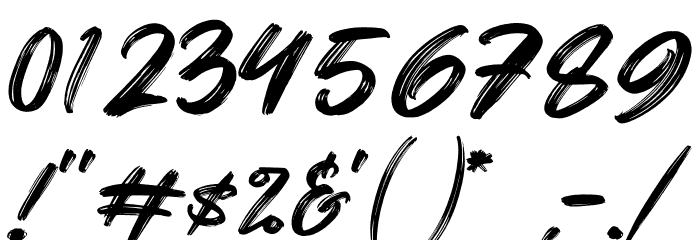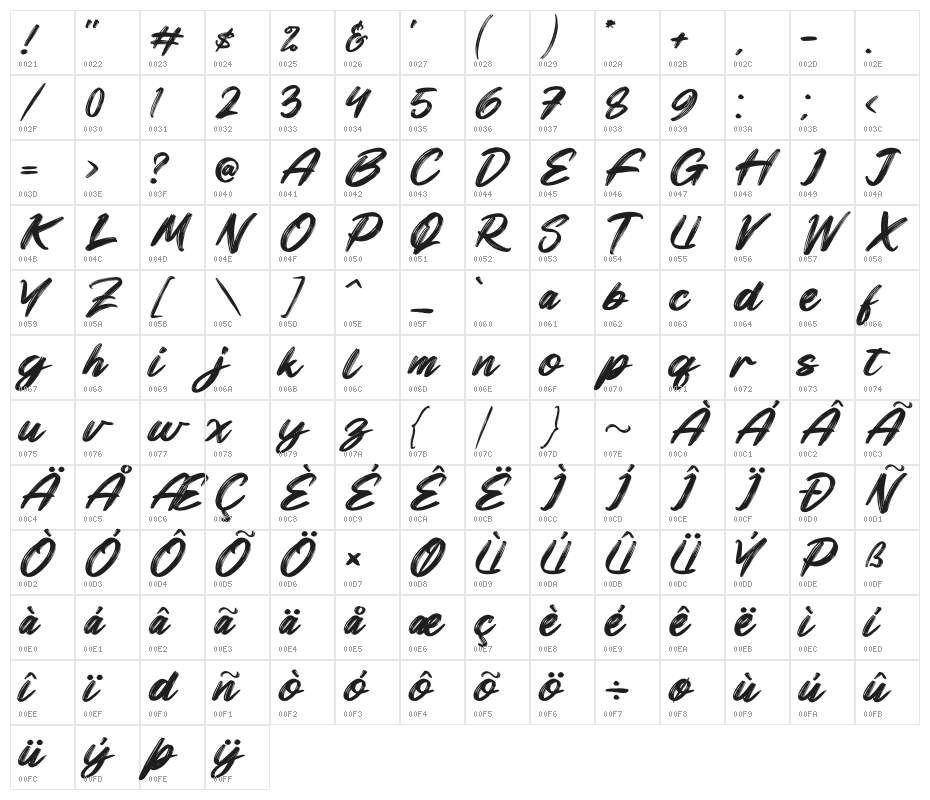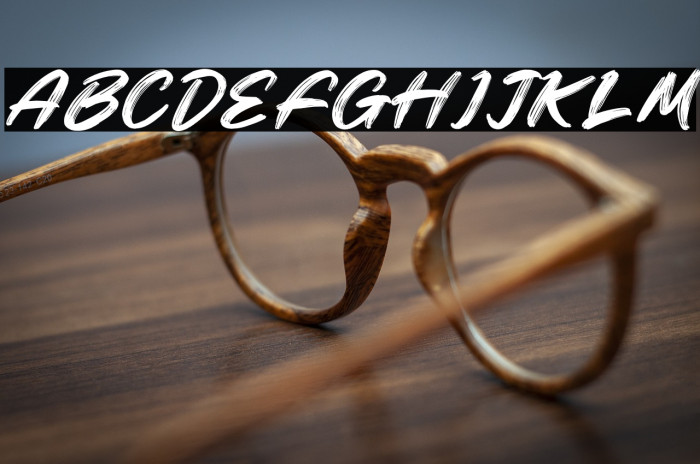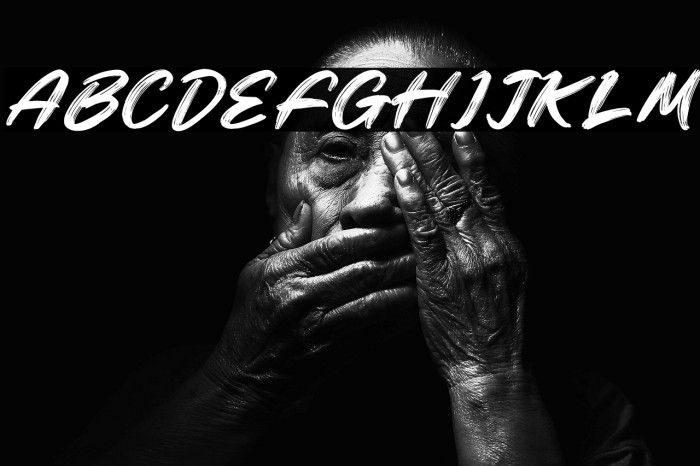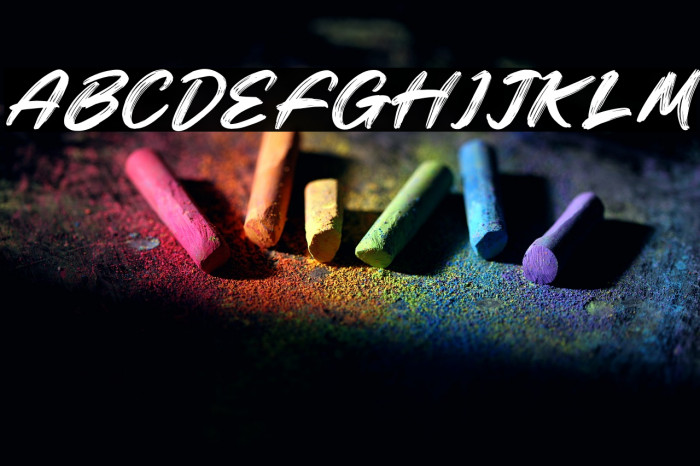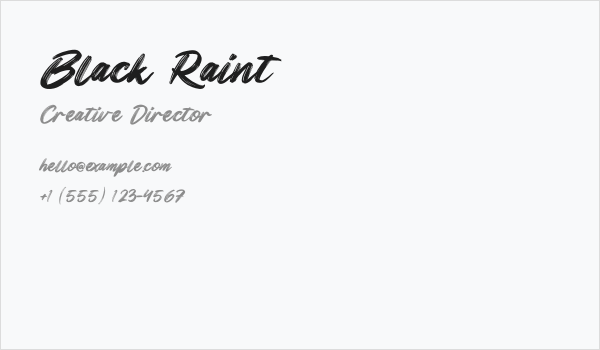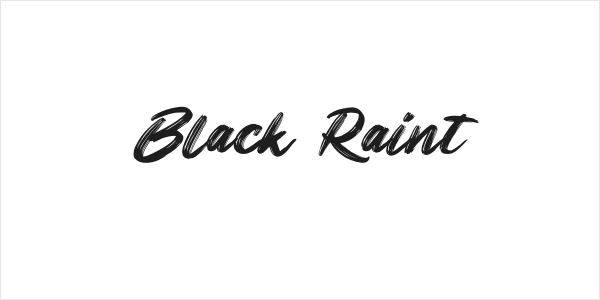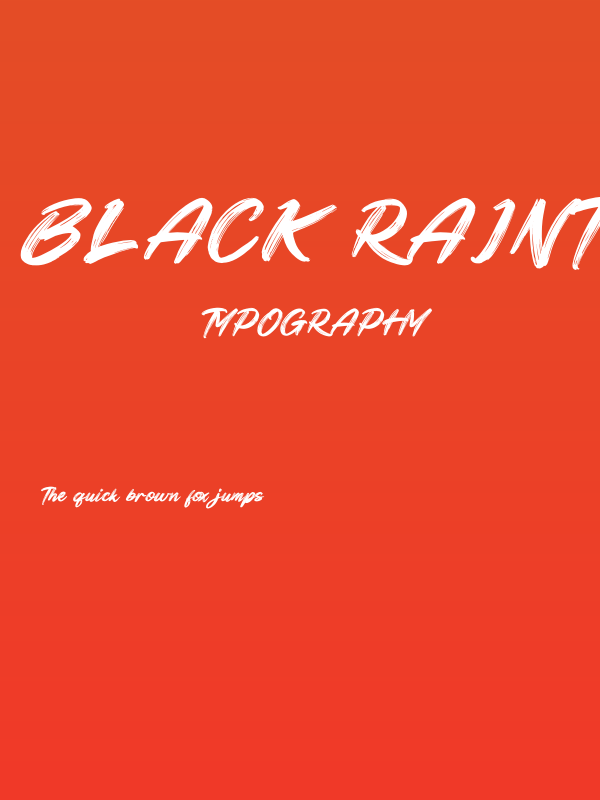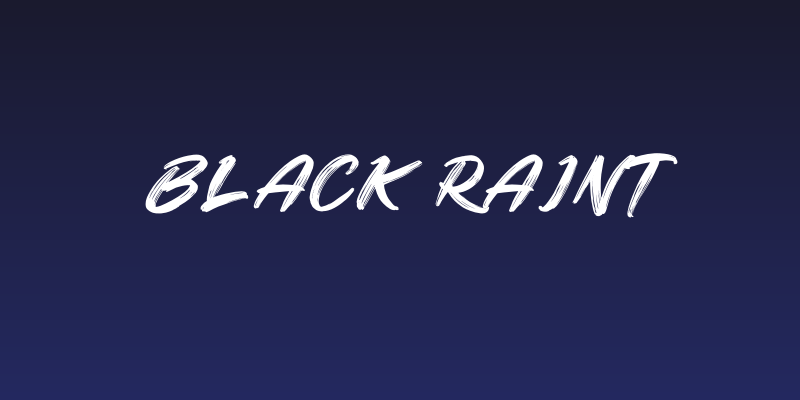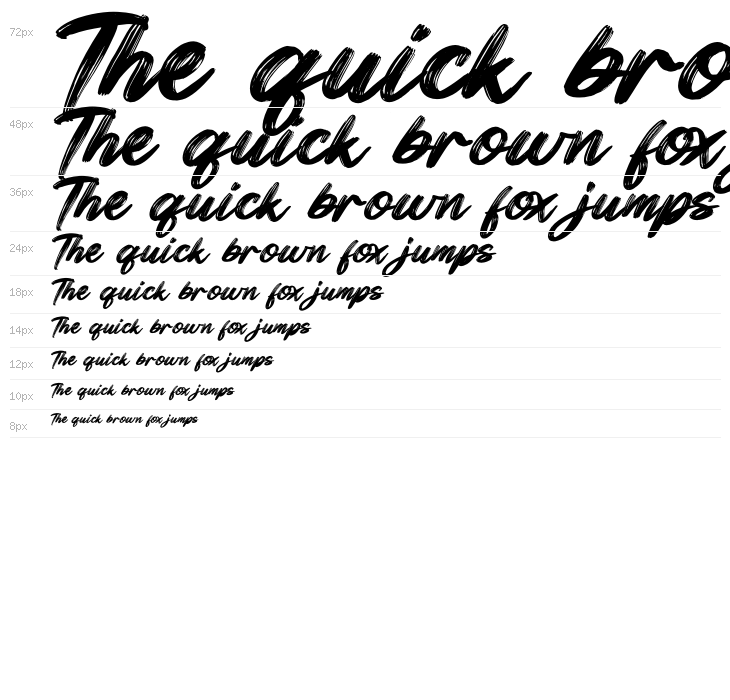
Black Raint Font
Black Raint Description
This font features a bold, expressive brush script style that exudes energy and dynamism. The strokes are thick and textured, giving a hand-painted appearance that adds a personal touch to any design. The letters are slightly slanted, enhancing the sense of movement and flow. This font's unique character is further emphasized by its irregular edges and varying stroke widths, which contribute to its artistic and informal vibe. The numbers and special characters maintain the same lively style, ensuring consistency across all text elements.